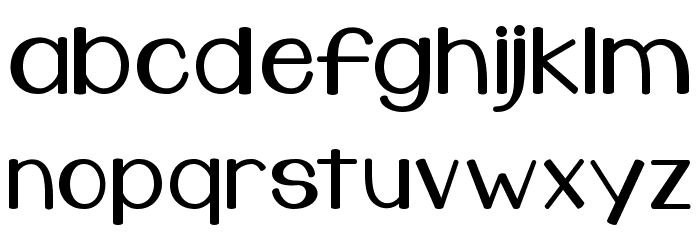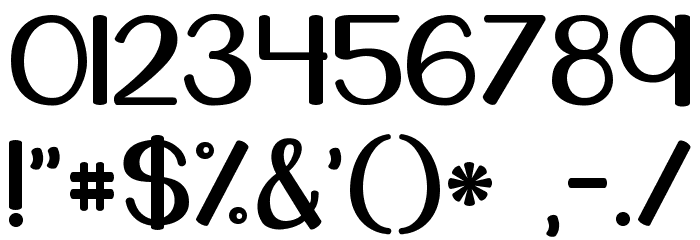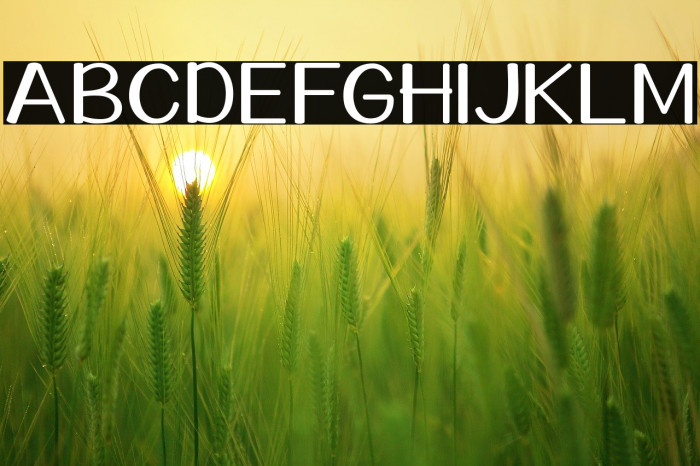
KG Dark Side Font
This font features a clean and modern sans-serif style with smooth, rounded edges that give it a friendly and approachable appearance. The uppercase letters are uniform in height, while the lowercase letters maintain a consistent baseline, enhancing readability. The numerals are well-proportioned, aligning seamlessly with the alphabetic characters. Special characters are distinct and clear, maintaining the font's overall aesthetic. The design is versatile, suitable for various applications, from digital to print media. Its simplicity and clarity make it ideal for conveying information effectively.
A modern sans-serif font with rounded edges and a clean, approachable style.
- Proposed Projects: Ideal for branding, web design, advertising, and user interfaces due to its clarity and modern appeal.